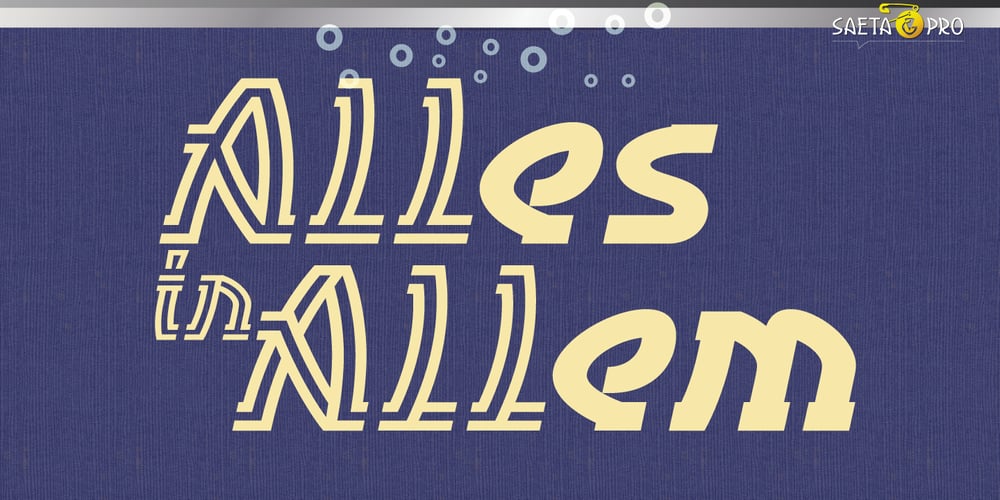
Saeta Pro Font Family was designed by Vangelis Dim. Gardikiotis and published by DBSV. Saeta Pro contains 12 styles and family package options. About family “SaetaPro” Wind games… The name is taken from an old paper toy made by someone who makes paper planes with teasing messages. But there are also songs with a strong feeling in flamenco style. It is also a way of expression in order to give way to emotion and interpersonal communication. They are wind games that people have been playing for a long time ago!!! This series is composed and includes twelve fonts with 632 glyphs each, with true italics, true Sloping and supports of course: Latin, Greek & Cyrillic.